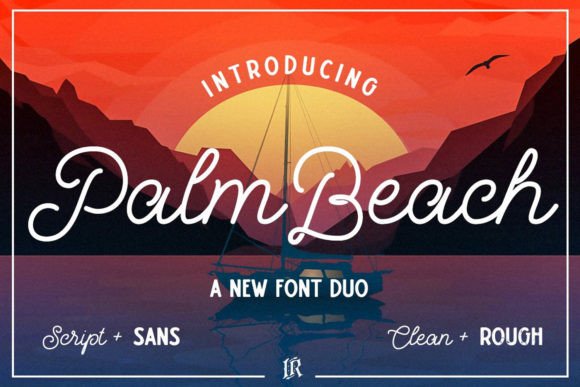
Looking for the best font for boat lettering? Look no further than Palm Beach Font, a stunning script font designed by IvanRosenberg.
Palm Beach Font is more than just a font duo. It's a versatile design tool that adds a touch of vintage class to any project. The stylish script is perfectly paired with a classic sans, making it the ideal choice for everything from vintage posters and t-shirts to magazines and phone covers.
But Palm Beach Font isn't just a pretty face. It's also incredibly versatile, making it perfect for a wide range of projects. Whether you're designing a restaurant menu, creating greeting cards and invitations, or just looking to add a touch of elegance to your social media posts, Palm Beach Font has you covered.
With its elegant curves and timeless design, Palm Beach Font is the perfect way to elevate your next project. So why wait? Download Palm Beach Font today and start creating something truly special.